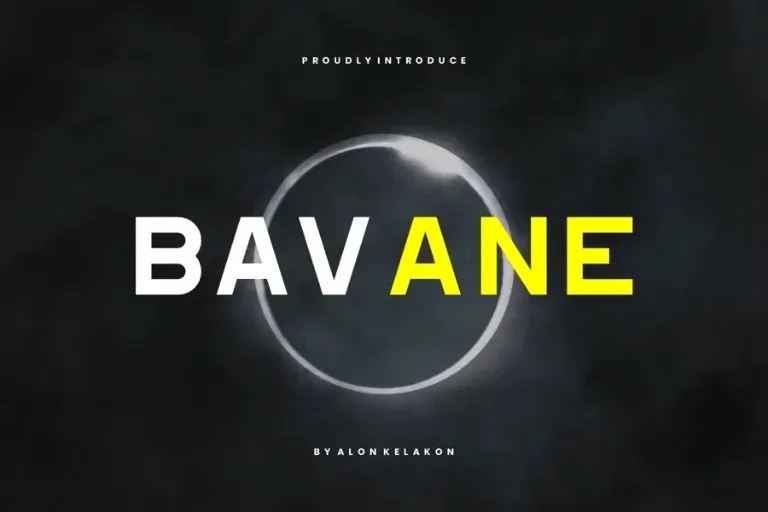
Bavane Font
Bavane Font is unique. For usage in your designs like labeling, for a movie scene, poster, movie title, concerts, album covers, logos and a lot more. The free version type contains all the letters both lower and upper case and a few more special characters.
Bavane Sans Serif Font